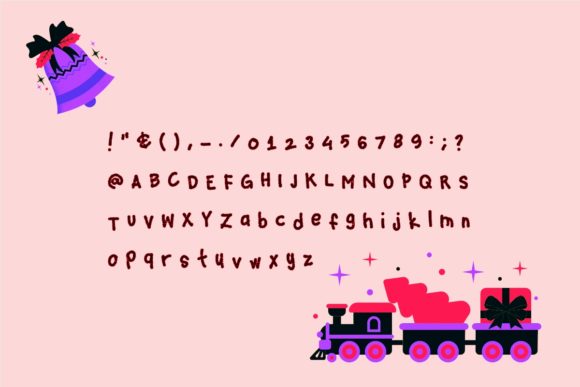
Introducing Gift Wrap Font: The Sweet and Simple Sprayed Handwritten Font for Crafty Designs
Are you a designer or crafter looking for a unique and charming font to add a personal touch to your projects? Look no further than Gift Wrap Font, a sweet and simple sprayed handwritten font that’s perfect for a wide range of crafty ideas. In this article, we’ll dive into the features and benefits of Gift Wrap Font, and explore how you can use it to elevate your designs and add a touch of personality to your creations.
What is Gift Wrap Font?
Gift Wrap Font is a beautifully designed sprayed handwritten font that’s perfect for adding a personal and whimsical touch to your designs. With its sweet and simple look, Gift Wrap Font is ideal for a variety of crafty projects, from letterheads and titles to stationery and more. The font’s original look is sure to appeal to designers and crafters who are looking for a unique and eye-catching way to add personality to their work.
Key Features of Gift Wrap Font
So, what makes Gift Wrap Font so special? Here are just a few of its key features:
- Sweet and Simple Design: Gift Wrap Font has a sweet and simple design that’s perfect for adding a touch of personality to your projects.
- Sprayed Handwritten Look: The font’s sprayed handwritten look gives it a unique and eye-catching appearance that’s sure to stand out.
- Crafty and Whimsical: Gift Wrap Font is perfect for crafty and whimsical projects, from letterheads and titles to stationery and more.
- Easy to Read: Despite its handwritten look, Gift Wrap Font is easy to read and understand, making it perfect for use in a variety of designs.
How to Use Gift Wrap Font in Your Designs
So, how can you use Gift Wrap Font in your designs? Here are just a few ideas to get you started:
- Letterheads and Titles: Use Gift Wrap Font to add a personal touch to your letterheads and titles.
- Stationery and Invitations: Add a touch of whimsy to your stationery and invitations with Gift Wrap Font.
- Crafting and Scrapbooking: Use Gift Wrap Font to add a personal touch to your crafting and scrapbooking projects.
- Signs and Banners: Use Gift Wrap Font to create eye-catching signs and banners for parties, events, and more.
Benefits of Using Gift Wrap Font
So, why should you choose Gift Wrap Font for your designs? Here are just a few benefits of using this beautiful font:
- Unique and Eye-Catching: Gift Wrap Font is a unique and eye-catching font that’s sure to stand out in any design.
- Easy to Use: Gift Wrap Font is easy to use and can be easily integrated into a variety of designs.
- Versatile: Gift Wrap Font is versatile and can be used in a wide range of crafty projects, from letterheads and titles to stationery and more.
- Personal Touch: Gift Wrap Font adds a personal touch to any design, making it perfect for crafters and designers who want to add a unique and whimsical touch to their work.
| Font Name | Gift Wrap Font |
| Author | lunarctic |
In conclusion, Gift Wrap Font is a sweet and simple sprayed handwritten font that’s perfect for crafty designers and crafters who want to add a personal touch to their projects. With its unique and eye-catching design, Gift Wrap Font is sure to stand out in any design. Whether you’re looking for a font for letterheads and titles, stationery and invitations, or crafting and scrapbooking, Gift Wrap Font is the perfect choice. So why wait? Download Gift Wrap Font today and start adding a touch of personality to your designs!